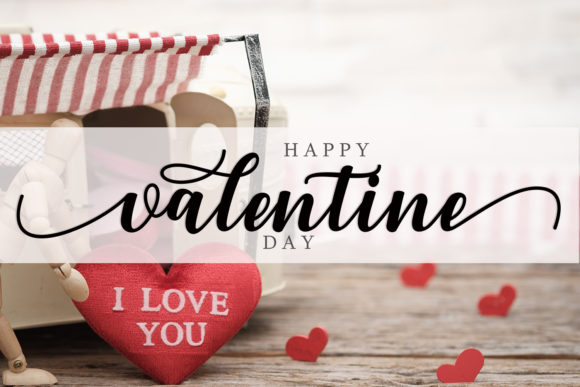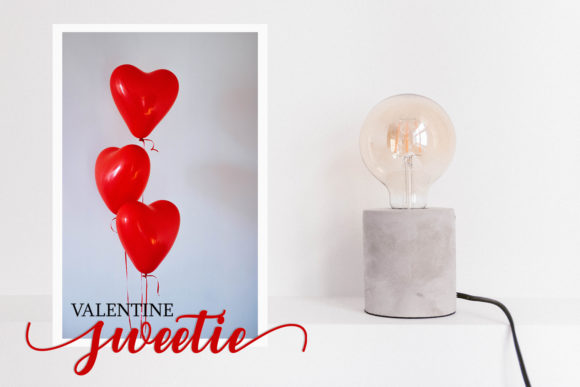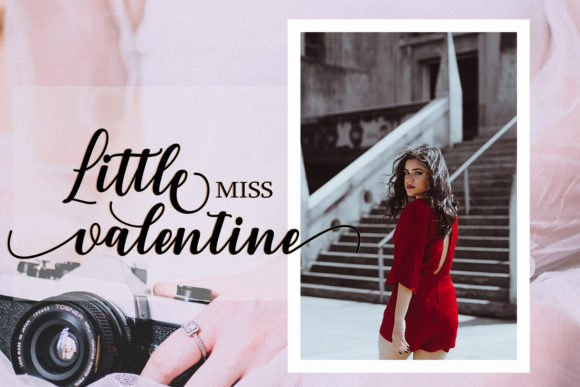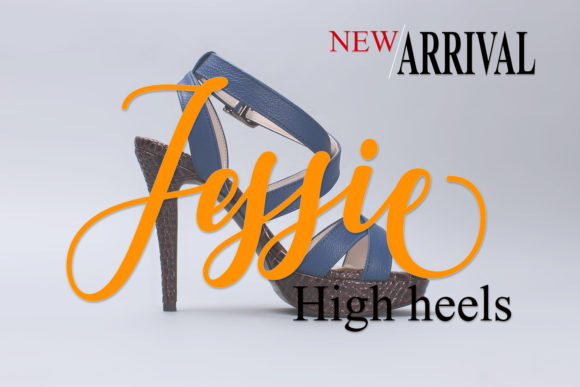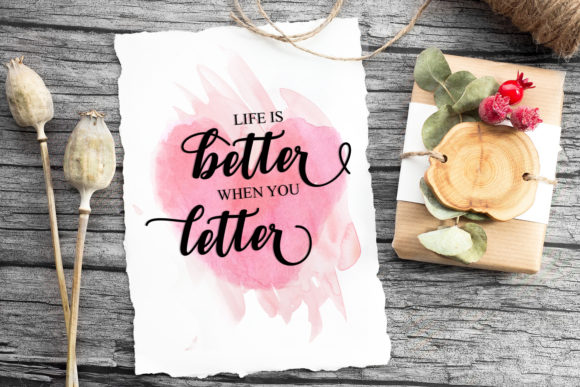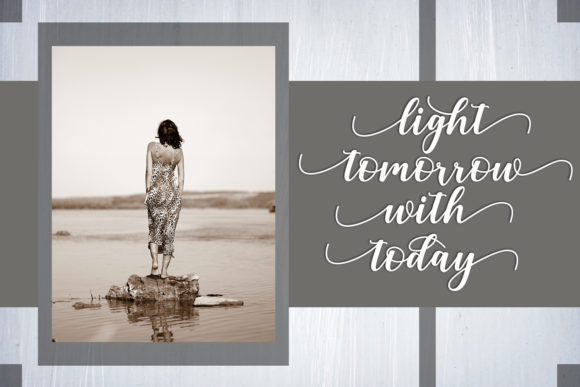
Discover the Unique Charm of Andayani Script Font
As a designer, I’ve had my fair share of struggles when it comes to finding the perfect font for a project. I recall working on a wedding invitation design, determined to create something that would make the couple’s special day even more memorable. The challenge? Finding a font that was elegant, modern, and would make the text stand out. That’s when I stumbled upon Andayani Script Font, a unique and modern script featuring flowing characters that instantly caught my eye.
A Personal Review of Andayani Script Font
I’ve had the pleasure of working with Andayani Script Font on several projects, and here’s my honest review:
- ✨ Unique and modern design: Andayani Script Font boasts a distinctive, flowing style that sets it apart from more traditional script fonts.
- ✅ Elegant and sophisticated: The font’s refined lines and curves make it perfect for projects that require a touch of luxury and sophistication.
- 💫 Highly versatile: Andayani Script Font can be used for a wide range of projects, from wedding invitations and branding materials to packaging and advertising.
While Andayani Script Font is an excellent choice for many projects, there are a few things to keep in mind:
- ⚠️ Legibility at small sizes: As with many script fonts, Andayani Script Font can be challenging to read at very small sizes. It’s best to use it at larger sizes (18pt or higher) to ensure optimal legibility.
- 🤔 Some letters may require adjustment: Depending on the word or phrase, some letters may need to be adjusted to ensure proper spacing and flow.
The Backstory Behind Andayani Script Font
Andayani Script Font was designed with the goal of creating a unique, modern script that would inspire creativity and elegance. The design process involved experimenting with different letterforms, strokes, and flourishes to create a font that is both refined and eye-catching.
| Font Name | Andayani Script Font |
| Author | Bexx Type |
| What makes Andayani Script Font unique? | Andayani Script Font features a distinctive, flowing design with elegant lines and curves, making it perfect for projects that require a touch of sophistication. |
| Is Andayani Script Font suitable for body text? | While Andayani Script Font is elegant and refined, it’s best suited for headlines, titles, and short paragraphs. For body text, a more traditional font may be more readable. |